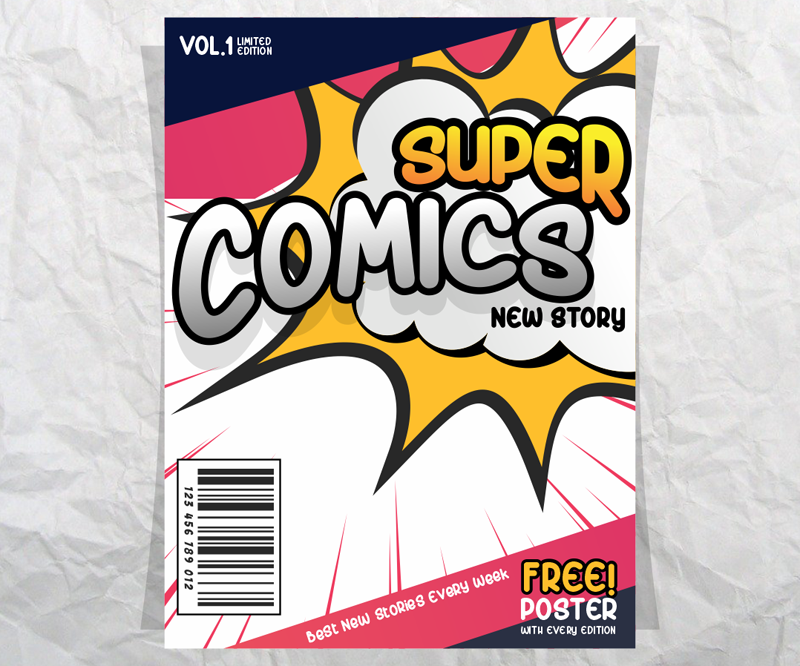
Preview and download Bigboss Font. Created by Almaz.id in Fancy Comic styles with Demo license.
Big Boss font is perfect for those of you who want the style of children. Fonts Made specifically for purposes such as: Kindergarten, Birthday, Kid, Cartoon, Comic, Children, and Playful. This demo font is for PERSONAL USE ONLY! Please contact me before any commercial use. My fonts for free use allowed only in personal project, non-profit and charity use. If you make money from using my fonts, Please purchase a commercial license here : https://almazstd.com/fonts/big-boss/ But any donation are very appreciated. PayPal account for donation : https://www.paypal.me/almazstd For more information about my fonts, please check on my web; www.almazstd.com THANK YOU... :) |